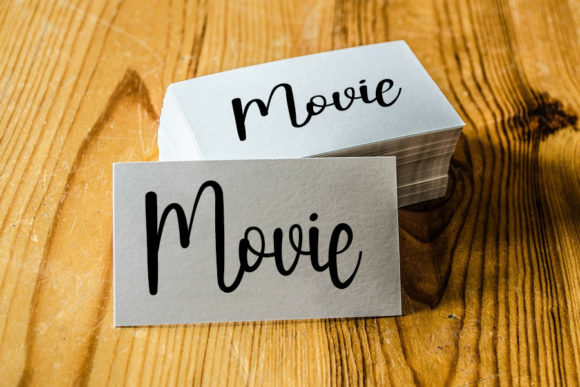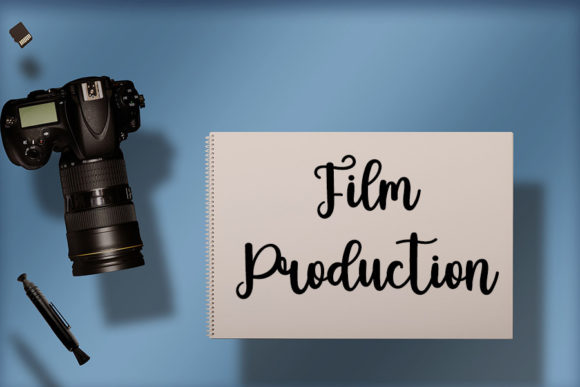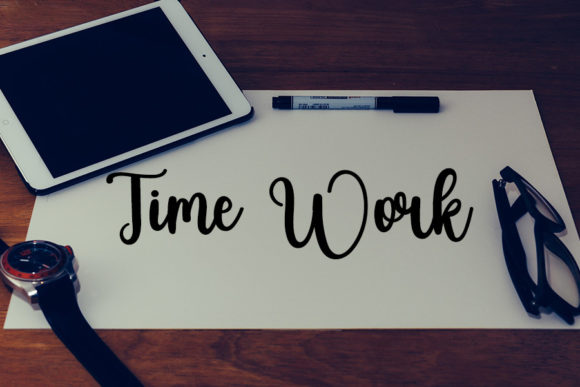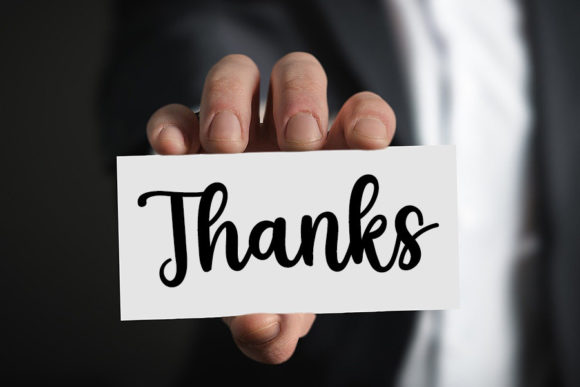
Introducing Behinds Font: Elevate Your Designs with Timeless Elegance
In the world of typography, a font can make or break the aesthetic of a design project. For designers and crafters seeking a touch of sophistication and classic elegance, Behinds Font is an exceptional choice. This stylish handwritten font boasts a contemporary atmosphere, impeccable form, and a balanced, varied style that is sure to enhance the beauty of your projects.
Inspiration from Timeless Classic Calligraphy
Behinds Font draws inspiration from the timeless classics of calligraphy, bringing a sense of tradition and refinement to your designs. The font’s creator aimed to capture the essence of elegant handwriting, resulting in a typeface that exudes warmth and personality. Each letter is carefully crafted to convey a sense of fluidity and movement, reminiscent of handwritten calligraphy.
A Balanced and Versatile Typeface
One of the standout features of Behinds Font is its balanced and varied style. Not too thin and not too thick, the font strikes the perfect balance between elegance and readability. This versatility makes it an excellent choice for a wide range of design applications, from luxury branding and high-end packaging to elegant stationery and creative crafts.
Key Features of Behinds Font
- Stylish Handwritten Style: Behinds Font boasts a beautiful, handwritten style that adds a personal touch to your designs.
- Contemporary Atmosphere: Despite being inspired by classic calligraphy, the font has a distinctly contemporary feel, making it suitable for modern design projects.
- Impeccable Form: Each letter is carefully crafted to ensure impeccable form and elegant lines.
- Balanced and Varied: The font’s balanced style ensures that it is neither too thin nor too thick, making it perfect for a wide range of design applications.
Use Cases for Behinds Font
Behinds Font is an incredibly versatile typeface that can be used in a variety of design projects, including:
- Luxury Branding: Add a touch of elegance and sophistication to your luxury brand’s visual identity.
- Packaging Design: Elevate your packaging designs with a font that exudes high-end quality and refinement.
- Stationery and Invitations: Create beautiful, elegant stationery and invitations that make a lasting impression.
- Creative Crafts: Add a personal touch to your craft projects, such as handmade cards, journals, and scrapbooking.
Why Choose Behinds Font?
With so many fonts available, why choose Behinds Font? Here are just a few reasons:
- Unique and Distinctive: Behinds Font offers a unique and distinctive style that will set your designs apart from the crowd.
- Elegant and Refined: The font’s elegant and refined style makes it perfect for designers and crafters seeking to add a touch of sophistication to their projects.
- Highly Versatile: Behinds Font is incredibly versatile, making it suitable for a wide range of design applications.
In conclusion, Behinds Font is an exceptional choice for designers and crafters seeking to add a touch of timeless elegance to their projects. With its stylish handwritten style, contemporary atmosphere, and impeccable form, this font is sure to enhance the beauty of your designs. Whether you’re working on luxury branding, packaging design, stationery, or creative crafts, Behinds Font is a versatile and refined typeface that will help you achieve your design goals.